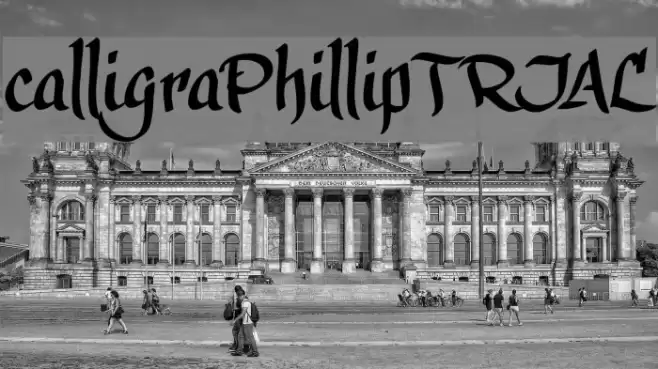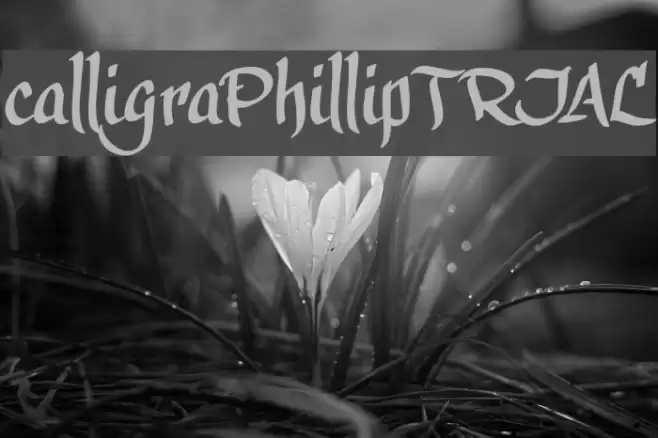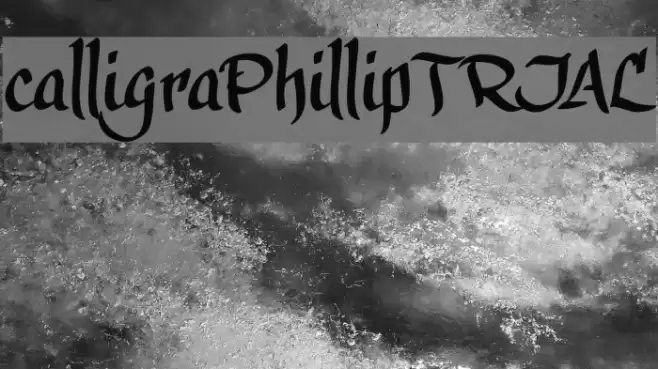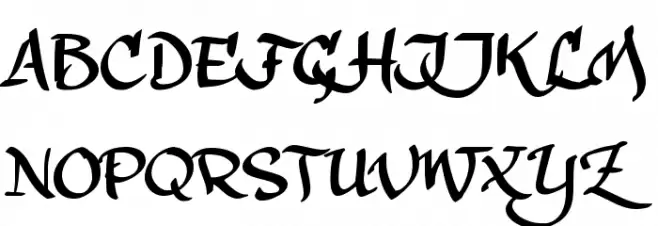
calligraPhillip_TRIAL Font
calligraPhillip_TRIAL Description
This font features a dynamic and expressive style, reminiscent of traditional calligraphy with a modern twist. The characters exhibit fluid, sweeping strokes that convey elegance and movement. The uppercase letters are bold and commanding, while the lowercase letters maintain a graceful flow. The font's unique character shapes and varying line thicknesses add a sense of artistry and sophistication. It is well-suited for projects that require a touch of elegance and creativity, such as invitations, branding, and decorative purposes. The overall design is both classic and contemporary, making it versatile for various applications.
A dynamic calligraphic font with expressive, sweeping strokes and elegant character shapes from Uncategorized fonts.
- Proposed Projects: Ideal for wedding invitations, branding, decorative signage, and artistic projects.
- Overall Style: Classic
- Use Case: Logos, Invitations, Decorative Text